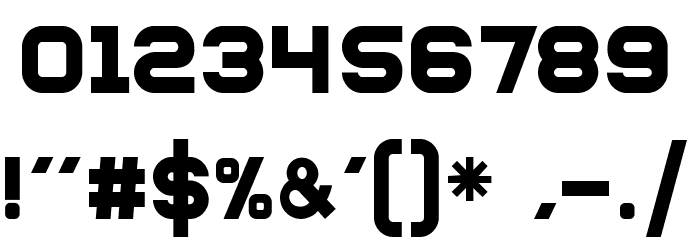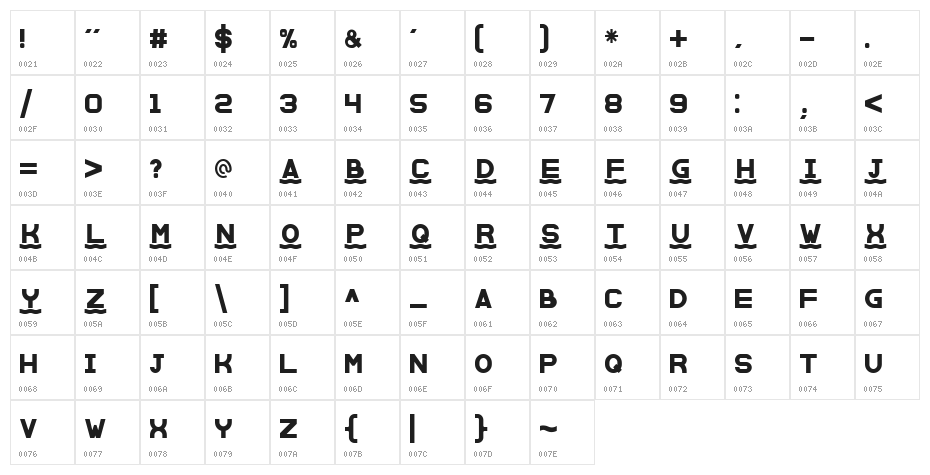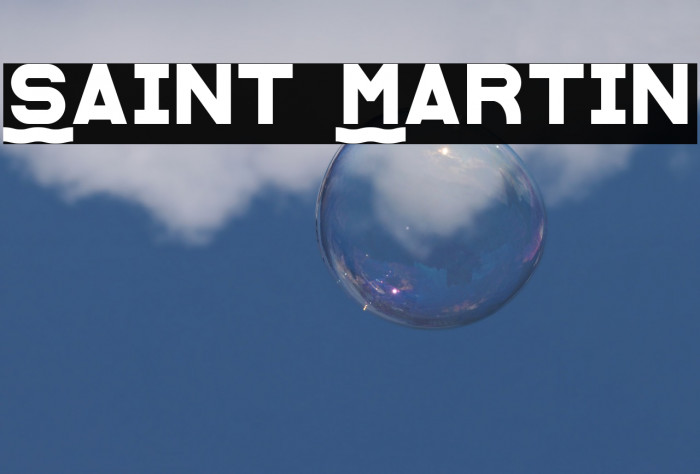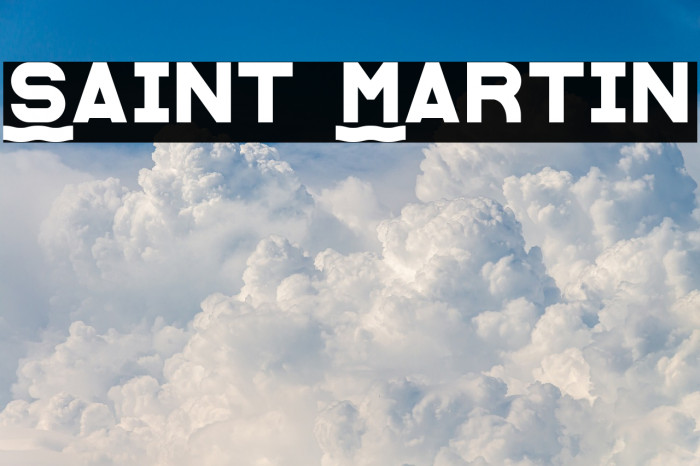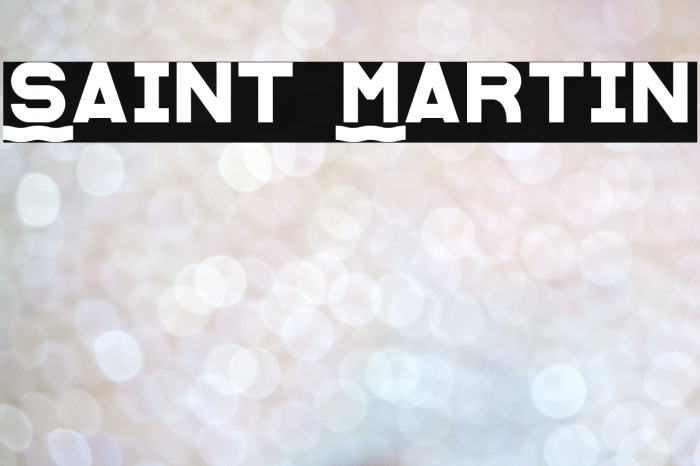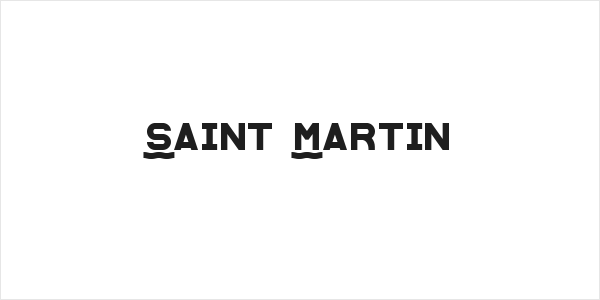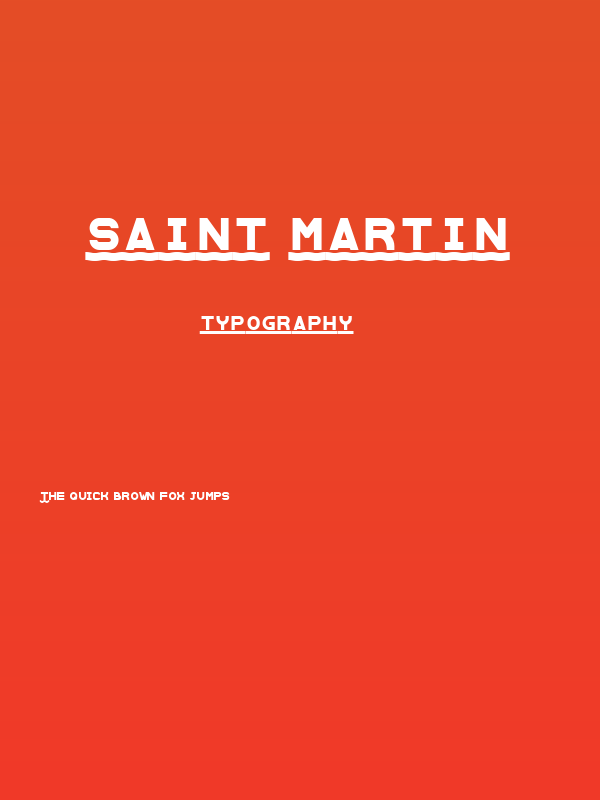
Saint Martin Font
Saint Martin Description
This font features bold, geometric letterforms with a strong presence. The characters are constructed with uniform stroke widths, giving them a sturdy and modern appearance. The uppercase letters are particularly striking, with a blocky, industrial feel that is both functional and stylish. The numerals and special characters maintain this robust design, ensuring consistency across all glyphs. The font's clean lines and lack of serifs contribute to its contemporary aesthetic, making it suitable for a variety of design applications.